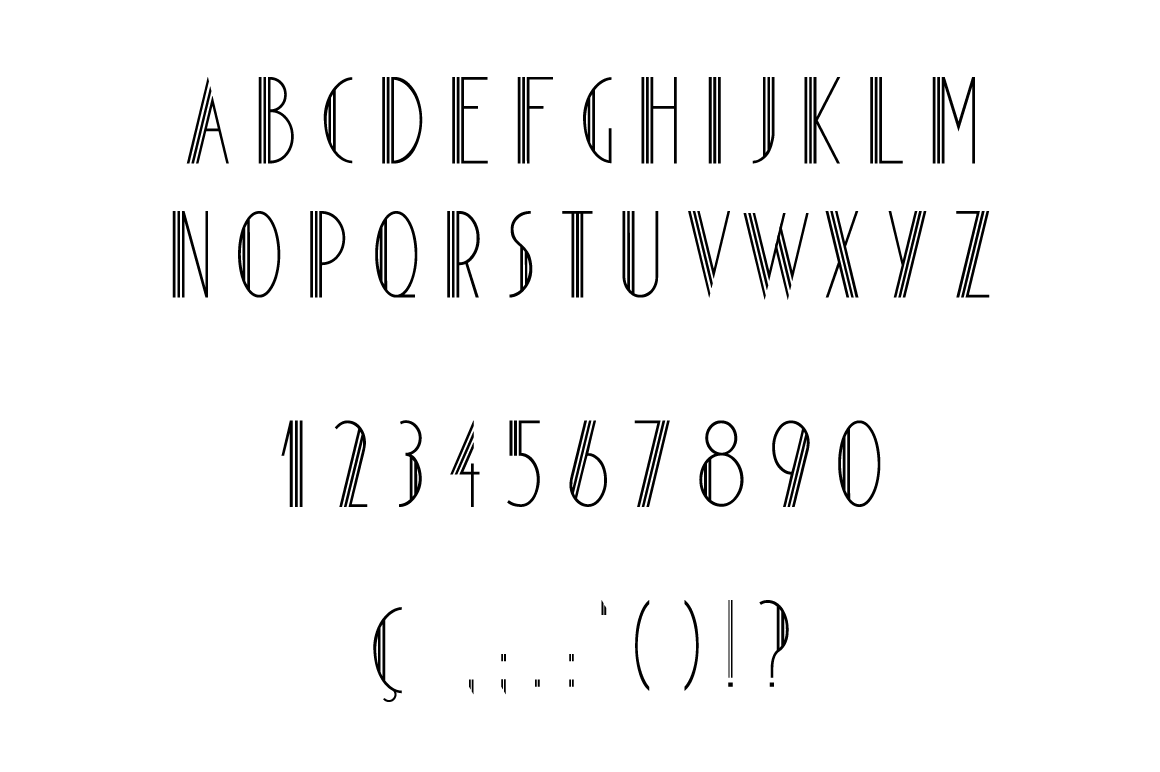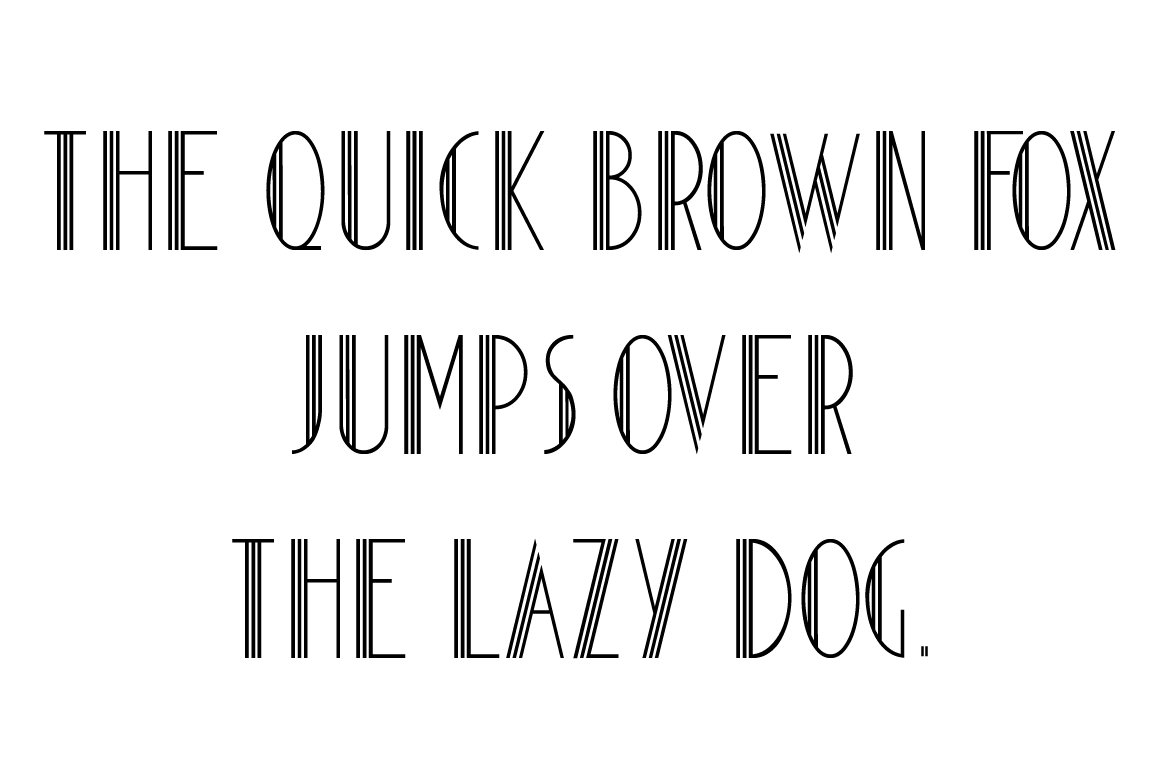
The Retro Charm of Expo 59 Font: A Designer’s Delight
I’ll never forget the time I was working on a vintage-inspired advertising poster for a client. I had all the design elements in place – the colors, the imagery, the layout – but something was missing. That’s when I stumbled upon the Expo 59 font. It was love at first sight! The font’s retro charm and quirky personality instantly elevated my design and made it stand out. In this article, I’ll share my experience with Expo 59, its features, and how to make the most of it in your designs.
A Personal Review of Expo 59
What I Love About Expo 59 ✨
• Its unique blend of modernity and nostalgia, making it perfect for designs that require a retro touch ✅
• The font’s versatility – it works well in a variety of contexts, from advertising posters to postcards 📨
• Its extensive character set, which includes OpenType features, glyphs, and stylistic alternates 🎨
• The way it evokes the spirit of the 1960s and 1970s, making it ideal for designs that require a vintage flair 🎉
• Some users may find the font a bit too bold or overpowering for certain designs ⚠️
• It may not be the best choice for body text or long paragraphs, as it can be a bit too ornate 📝
The Backstory of Expo 59
Expo 59 is a font inspired by the design trends of the 1960s. Its creator, a fictional designer named Alex, was fascinated by the era’s bold and playful aesthetic. Alex spent countless hours researching and experimenting with different typography styles, eventually creating Expo 59 – a font that’s both modern and nostalgic. While the story may be fictional, the font’s charm and character are very real.
What is Expo 59 font? Expo 59 is a typography font inspired by the design trends of the 1960s. It’s characterized by its bold and playful personality.
Is Expo 59 suitable for body text? While Expo 59 is a beautiful font, it may not be the best choice for body text or long paragraphs. It’s better suited for headlines, titles, and short text elements.